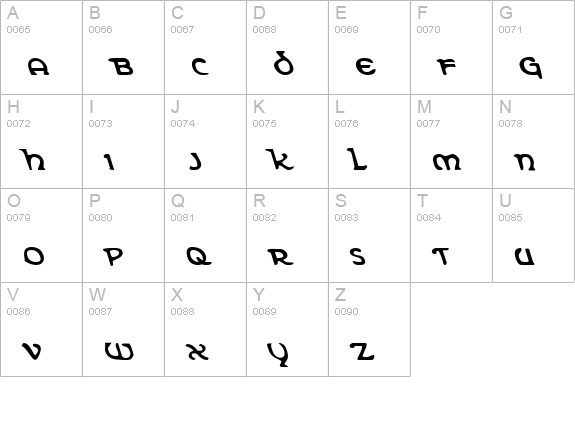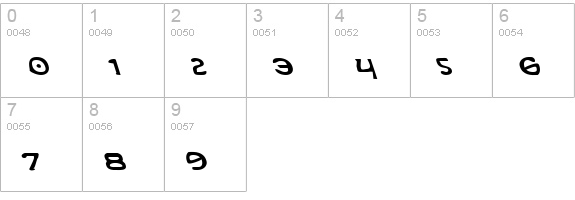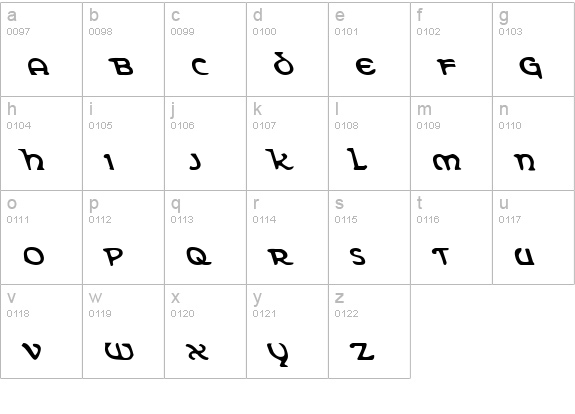
Erin Go Bragh Leftalic font is a stunning and elegant typeface that exudes a sense of sophistication and style. Its slanted design adds a touch of flair and personality to any project, making it perfect for use in invitations, posters, logos, and more. The smooth curves and graceful letterforms of Erin Go Bragh Leftalic font give it a timeless and classic appeal that is sure to stand out. The best part? Erin Go Bragh Leftalic font is available for free download at FontsMarket.com, making it easily accessible to anyone looking to add a touch of elegance to their designs. Whether you're a professional designer or a hobbyist looking to elevate your projects, Erin Go Bragh Leftalic font is a versatile and eye-catching choice that will make your work shine. Download it today and see the difference it can make in your designs!